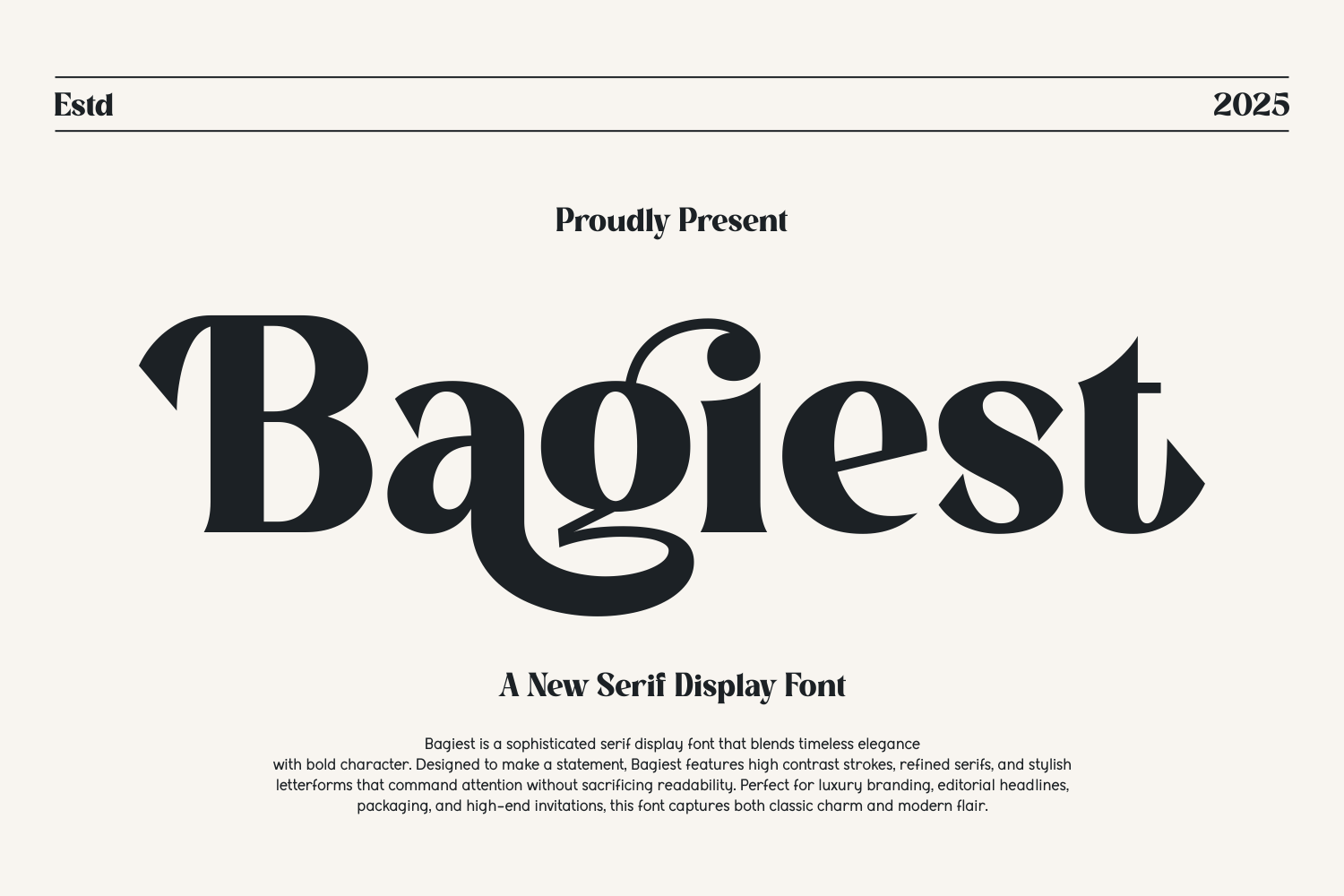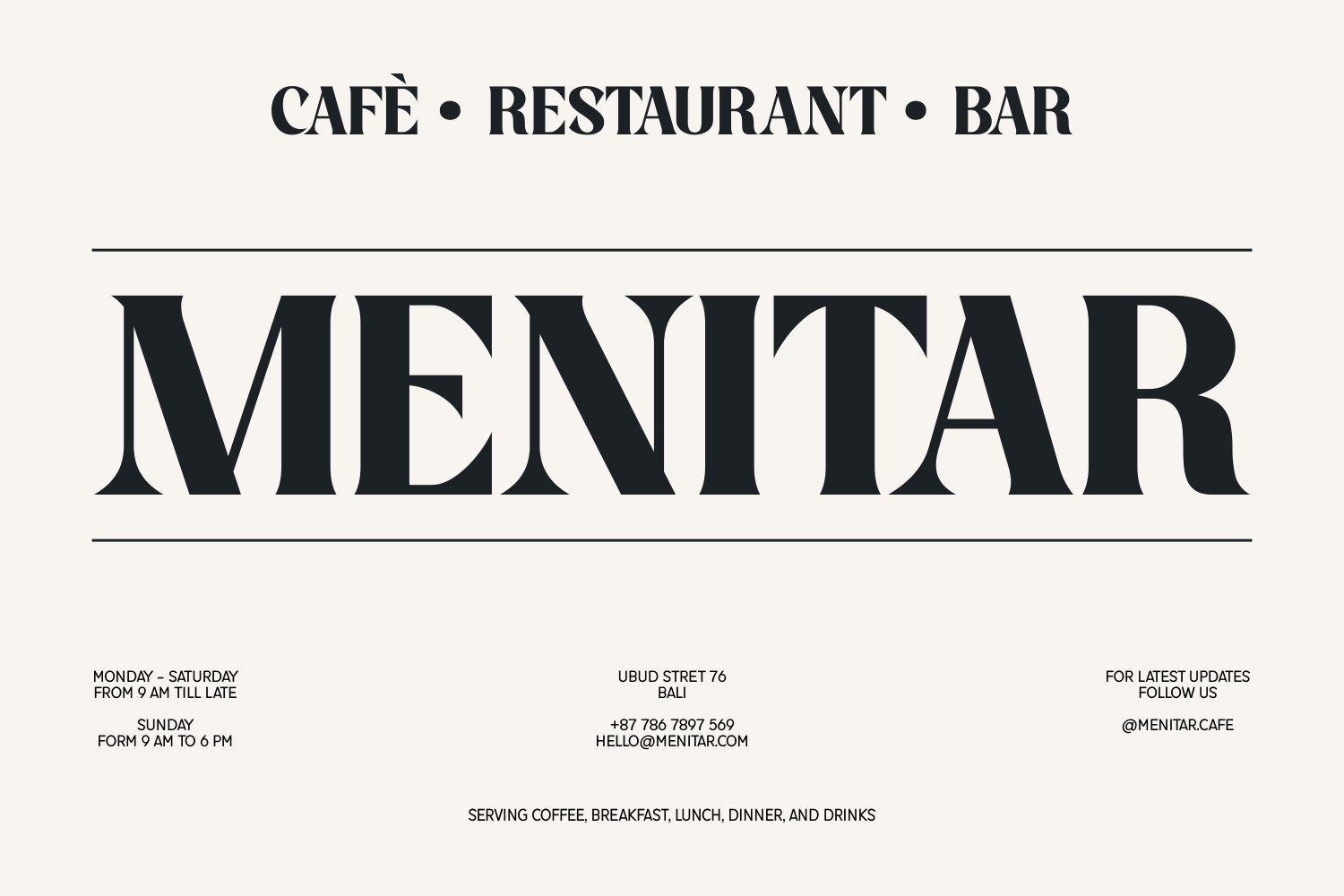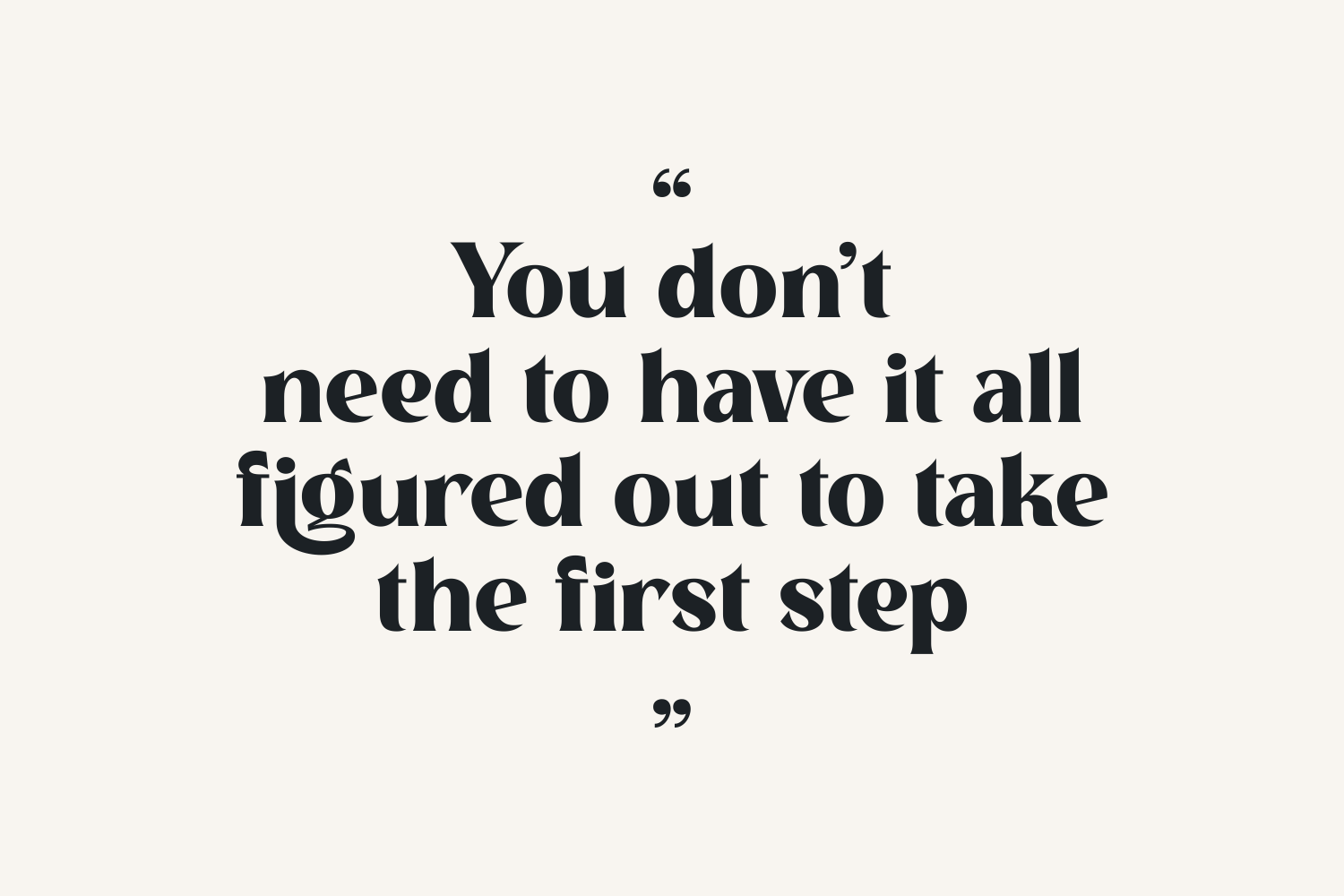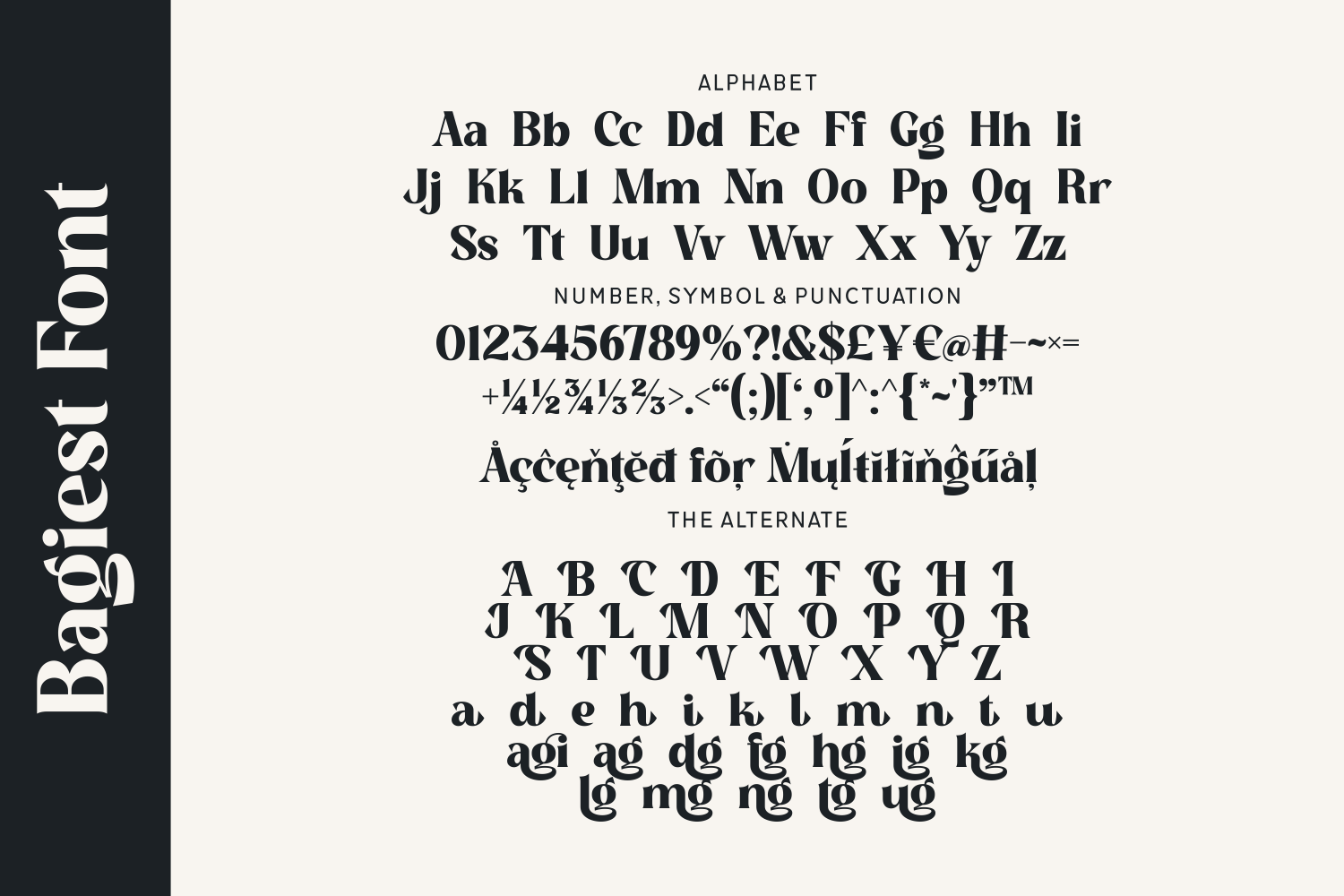
Bagiest is a refined serif display font crafted for bold expression and high-end elegance. It combines classic serif sophistication with modern attitude, offering a versatile set of alternates and ligatures that elevate your typography to luxury status. Ideal for fashion, lifestyle, and boutique businesses, Bagiest adds flair and finesse to every word.